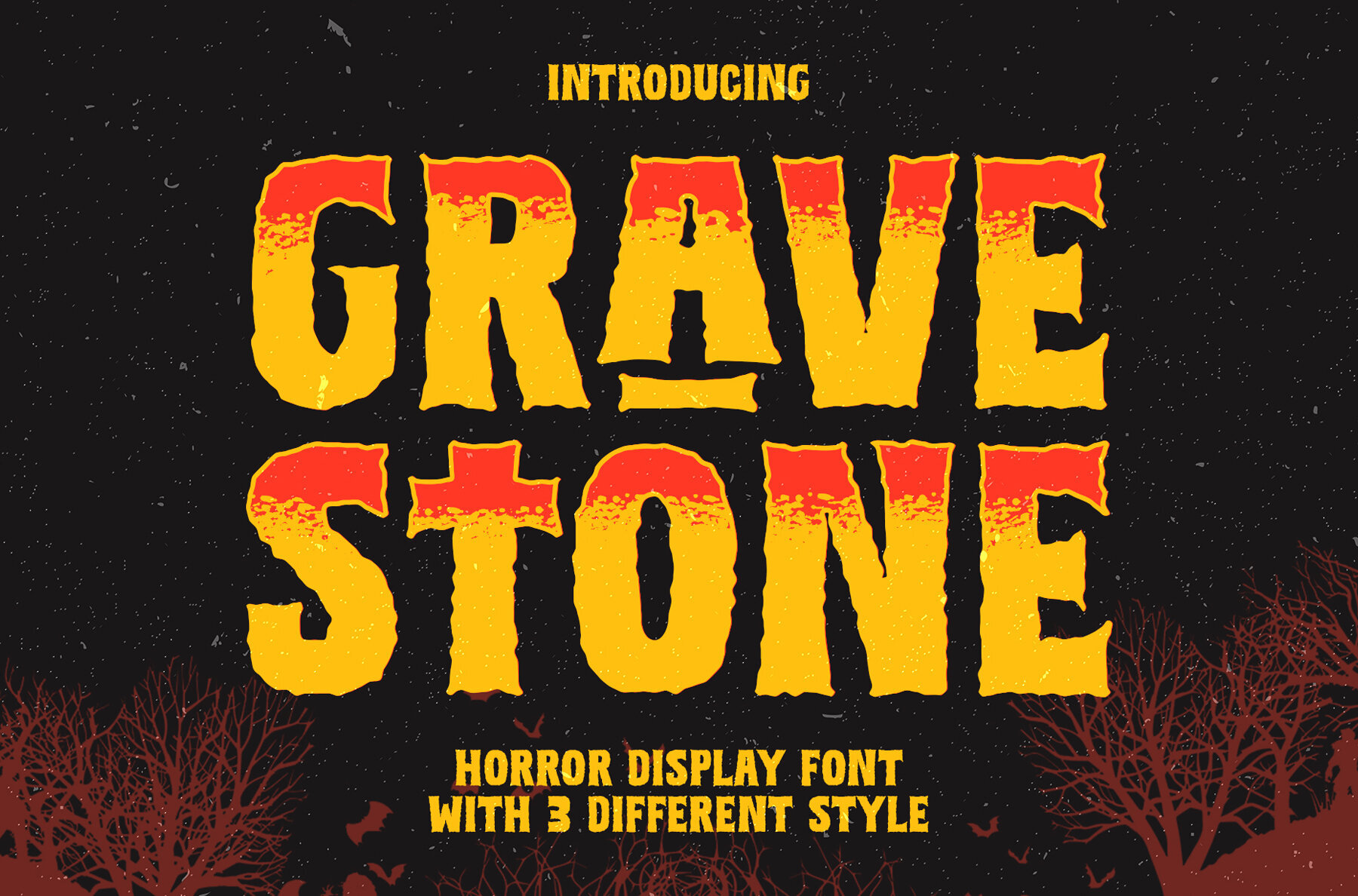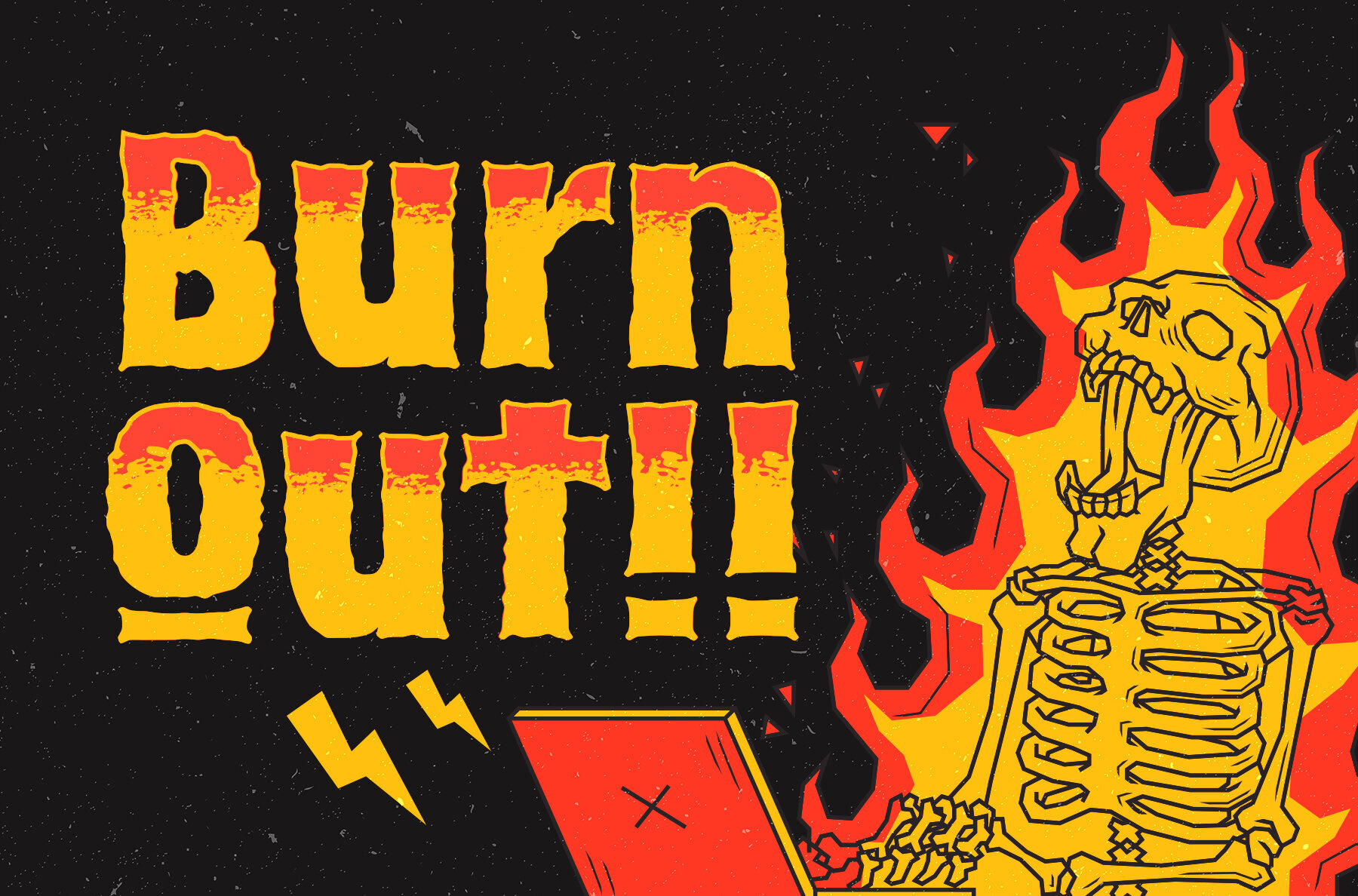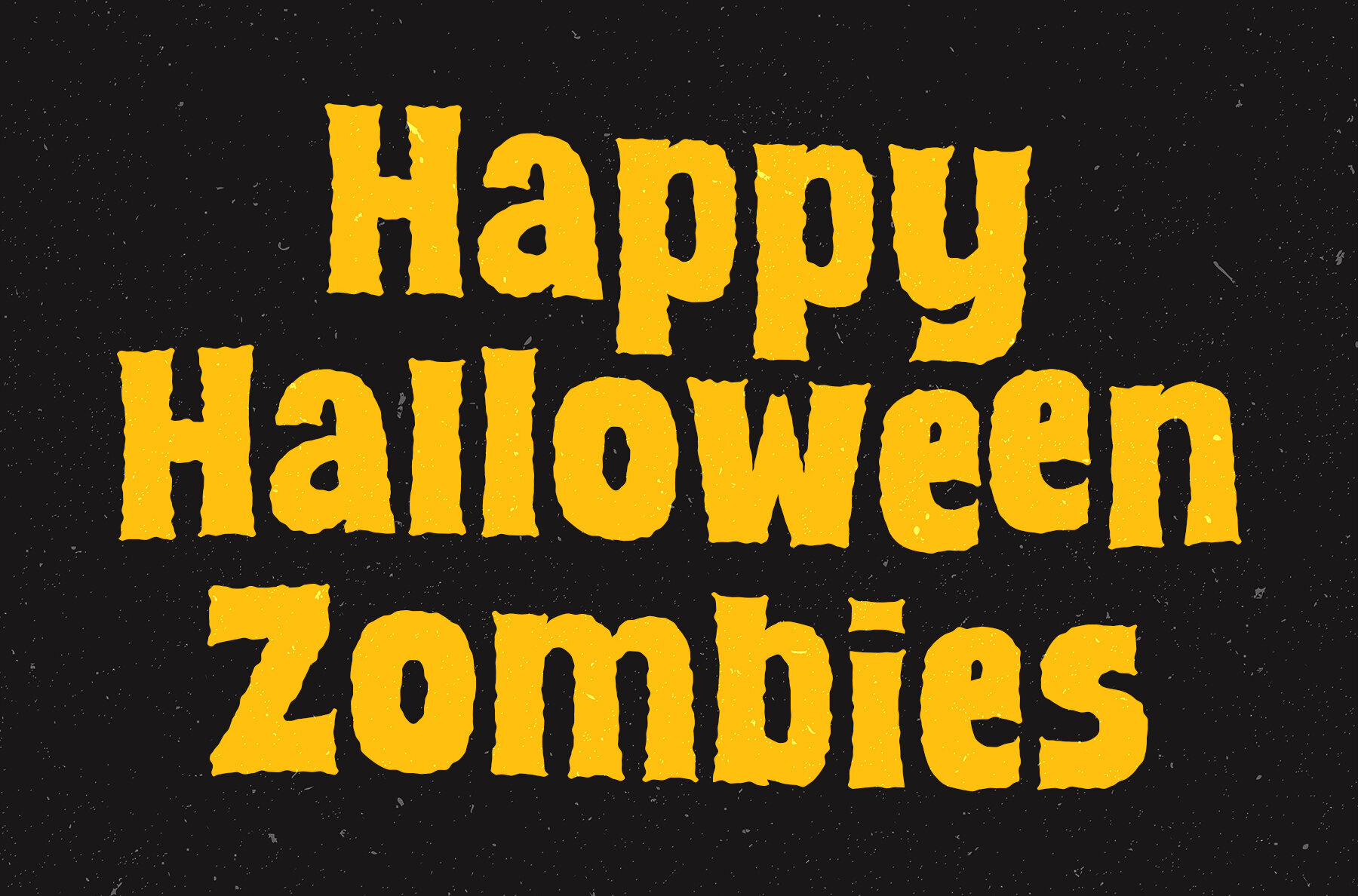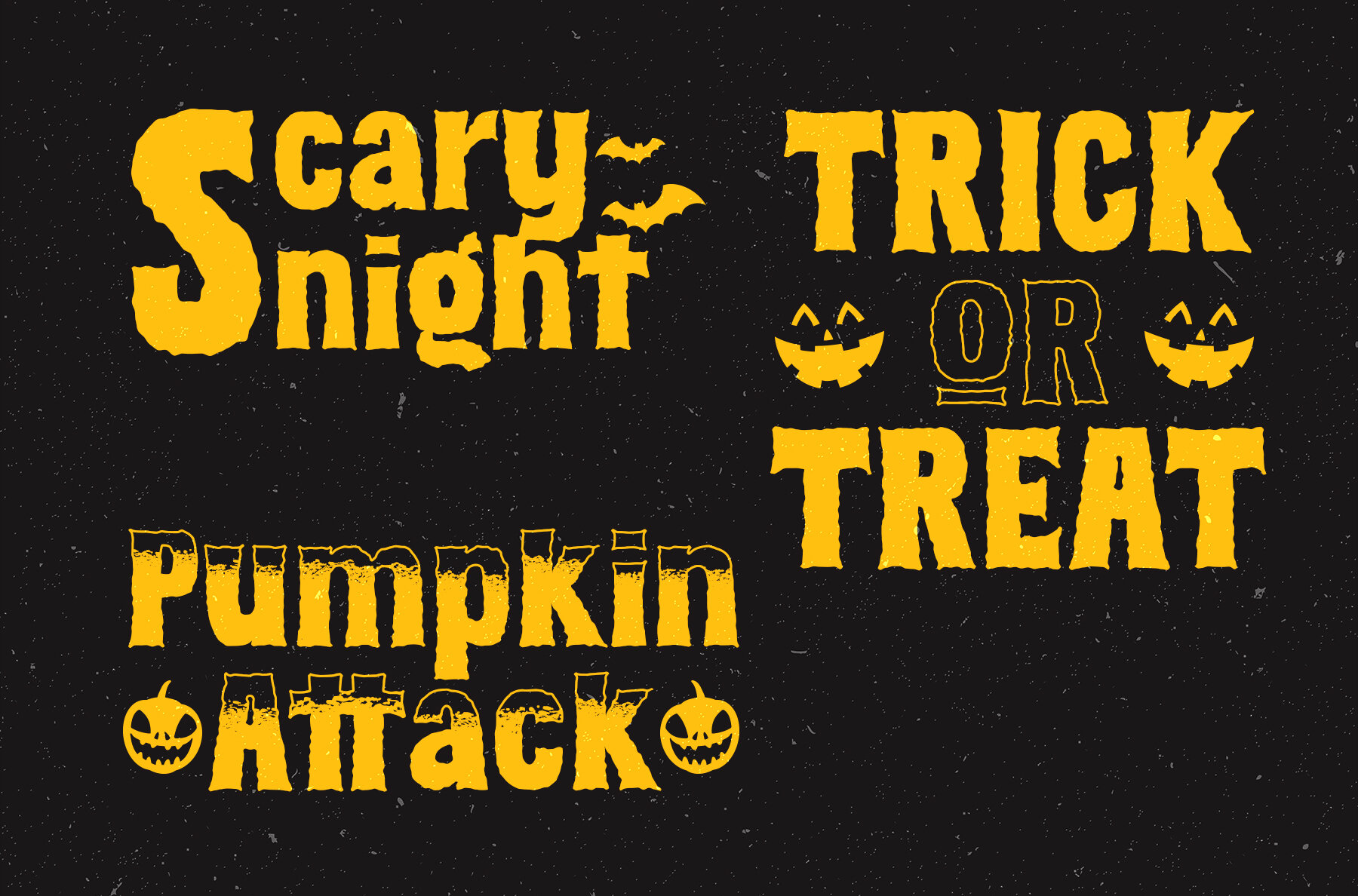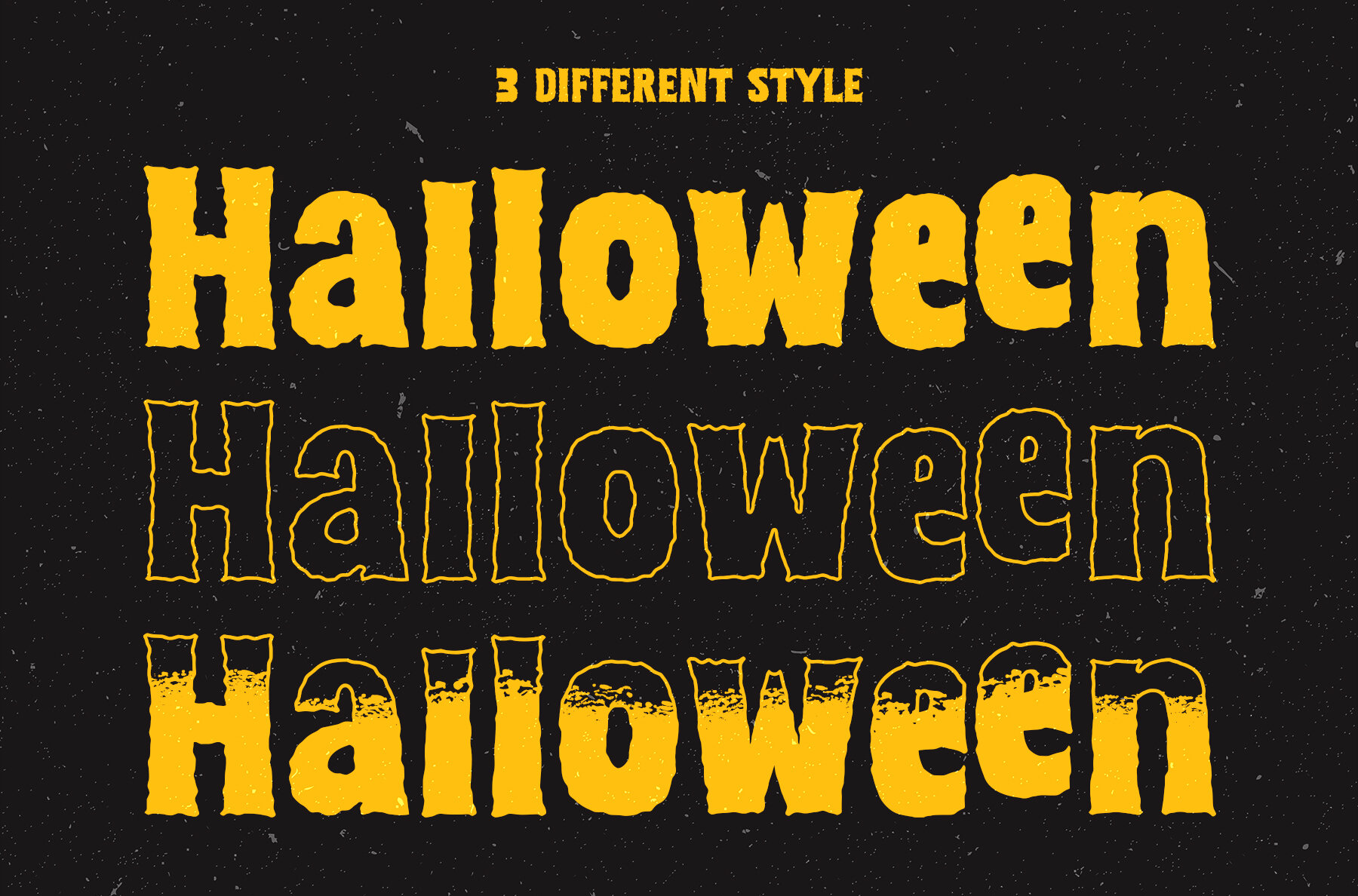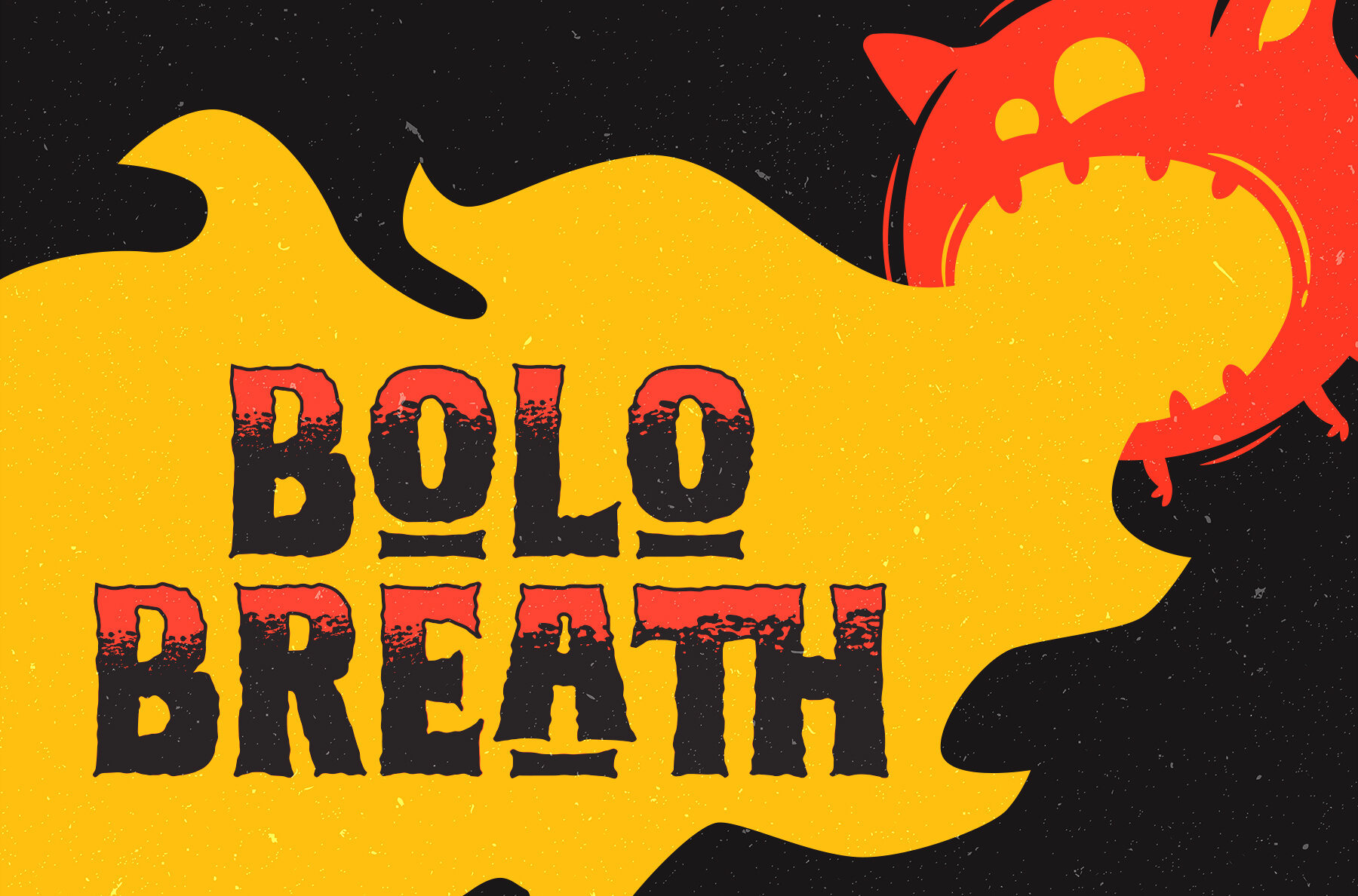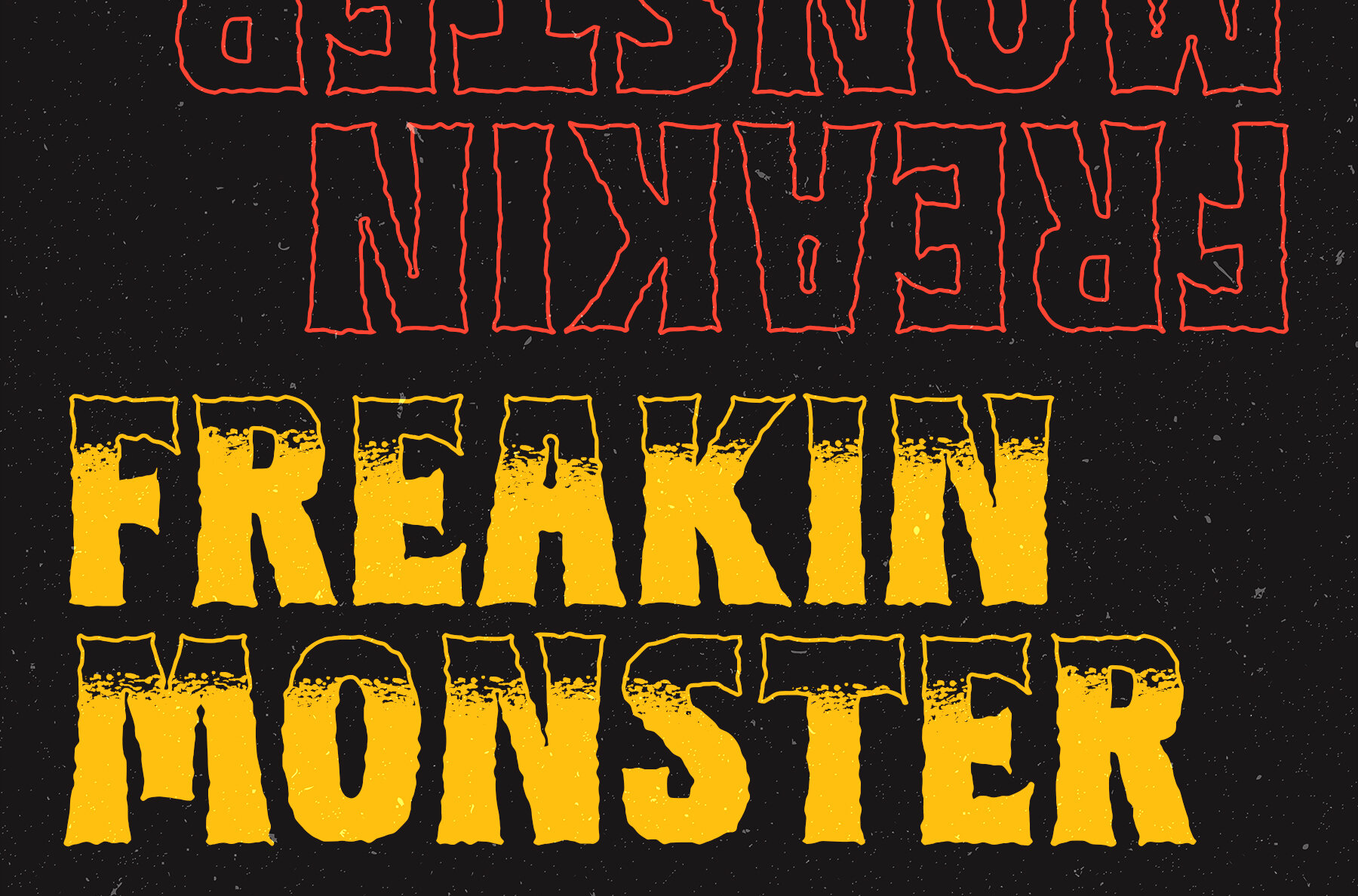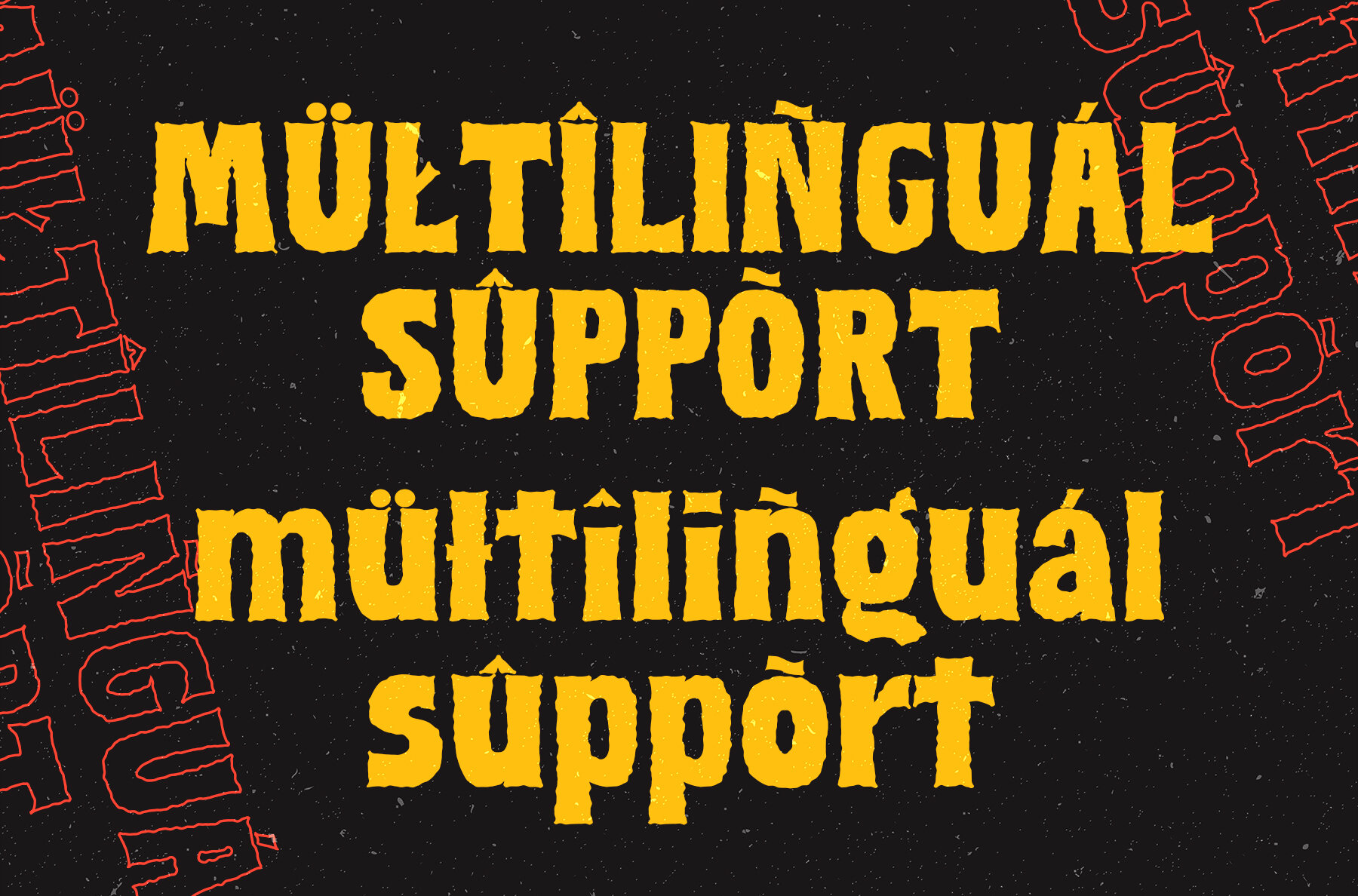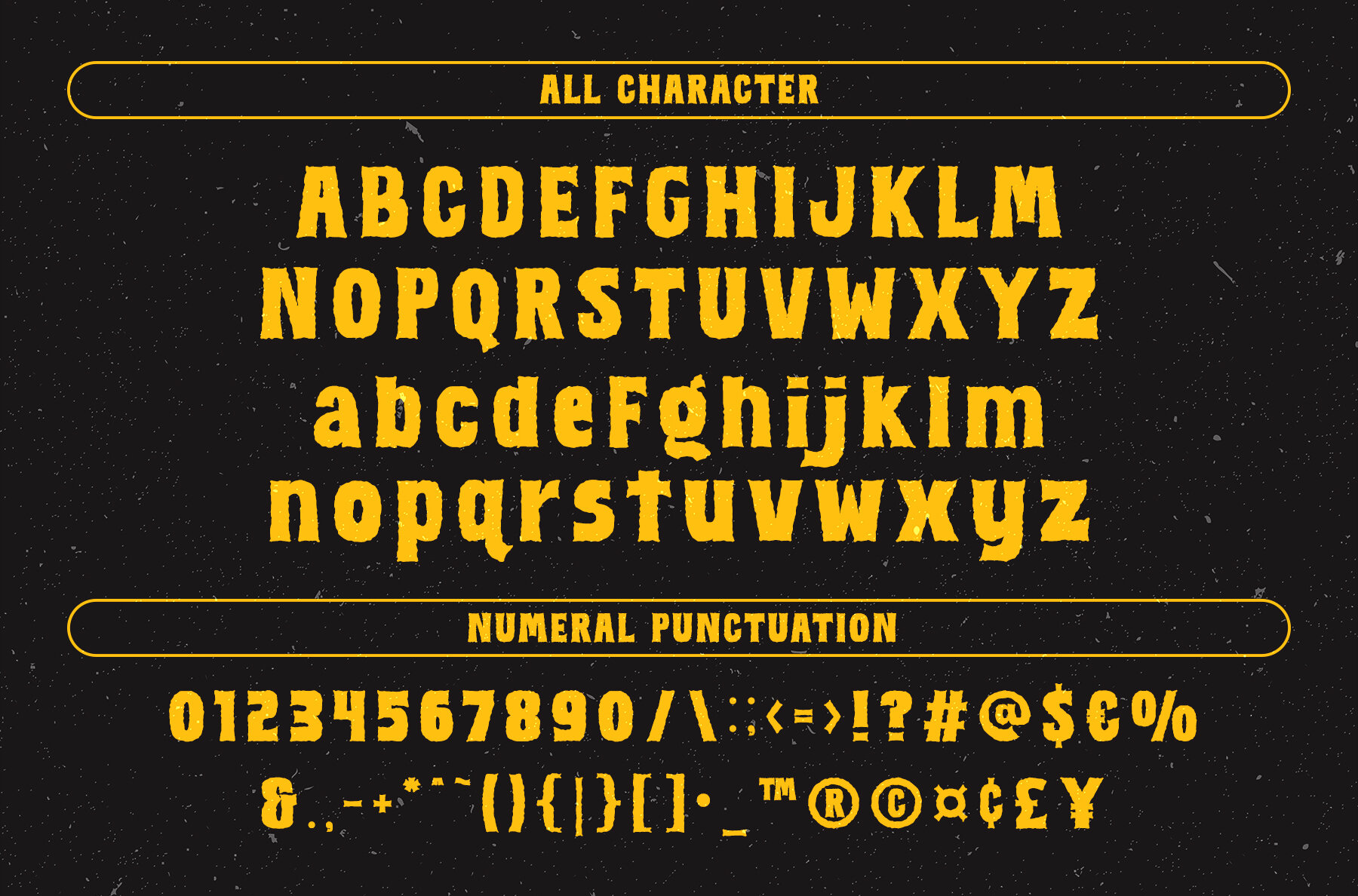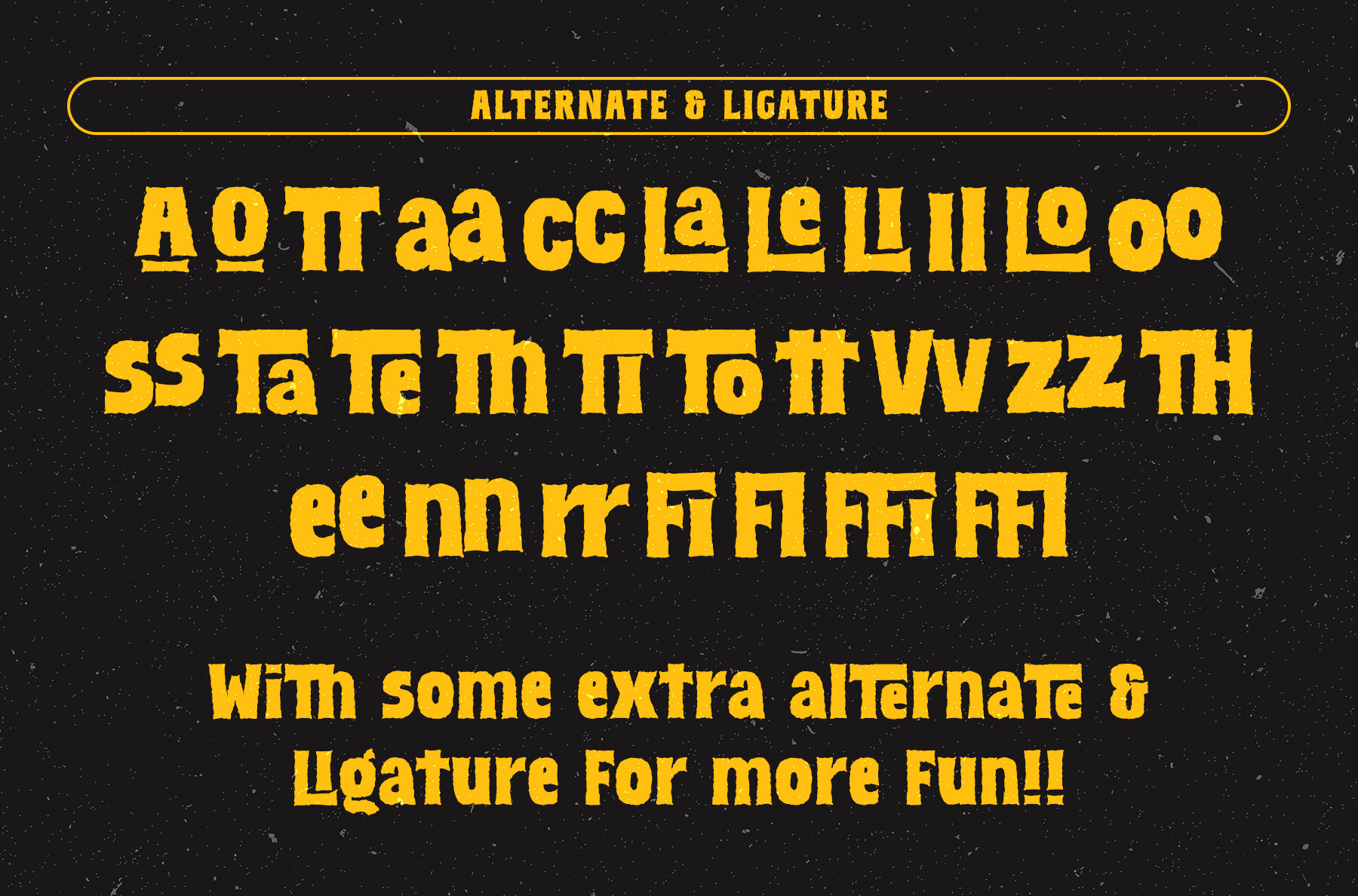
Gravestone Font
Gravestone Regular
Gravestone Outline
Gravestone Texture
The Gravestone font is dedicated to approaching the scary night to come with several features in it and the shape is very grunge, suitable for horror fans. The font I created is meaningful & very versatile, fitting into a variety of designs, elevating them to the highest level. Add this font to your favorite creative ideas and see the results!